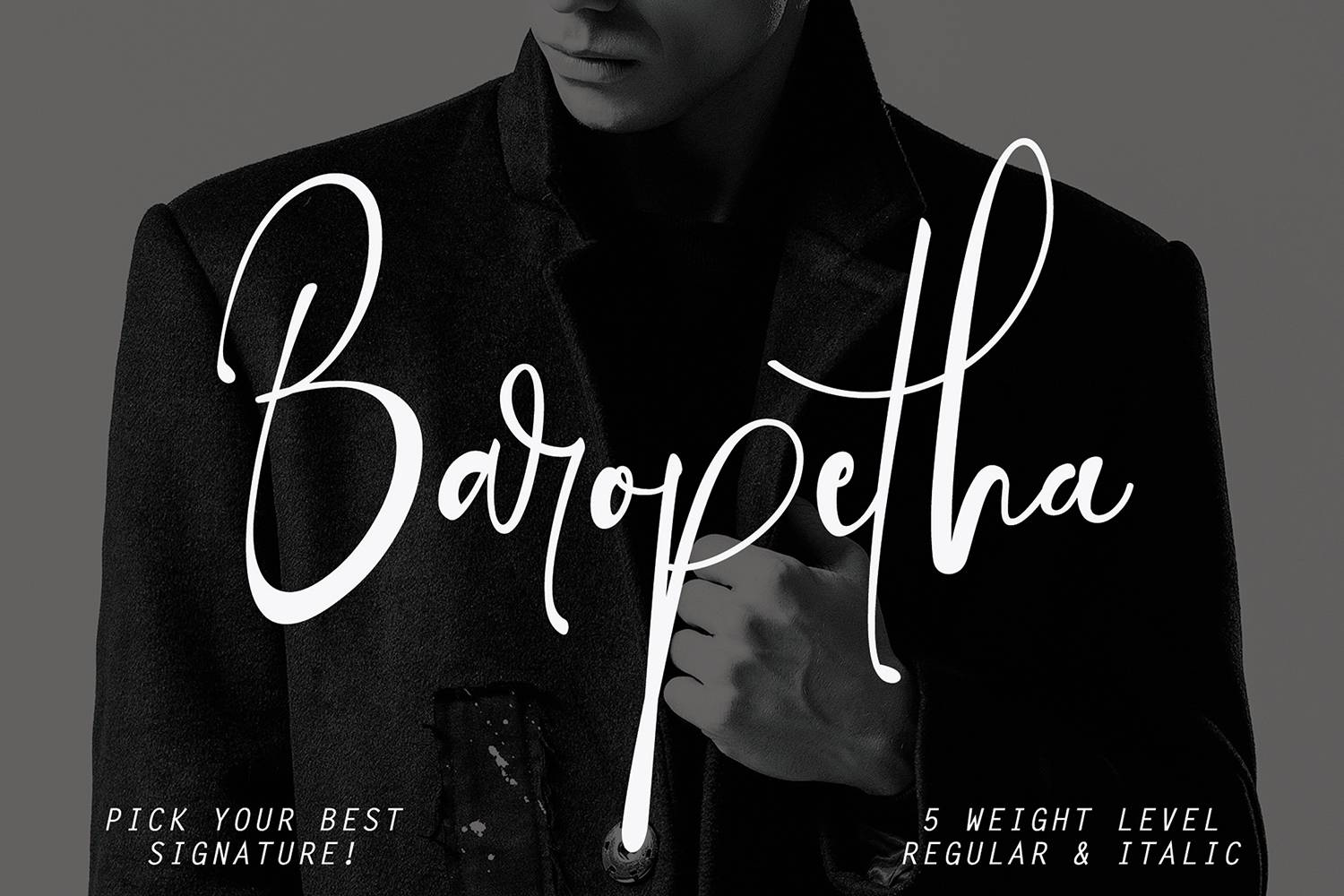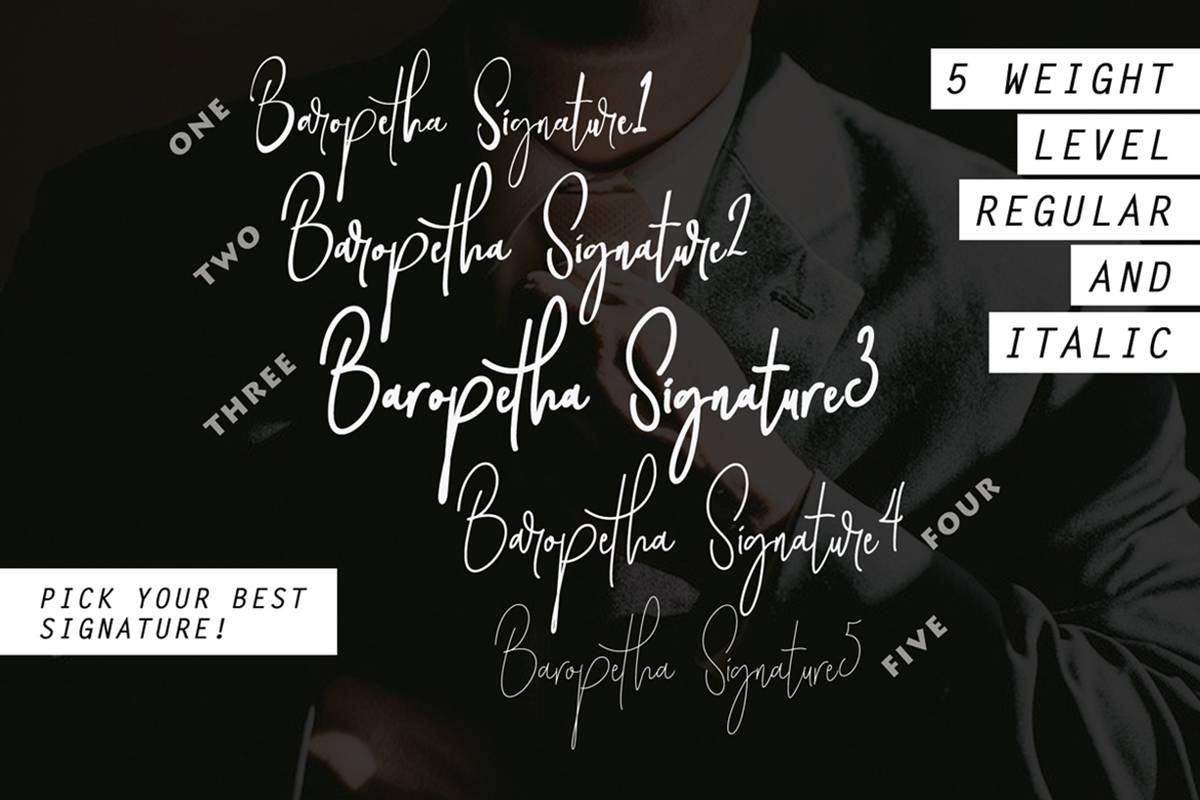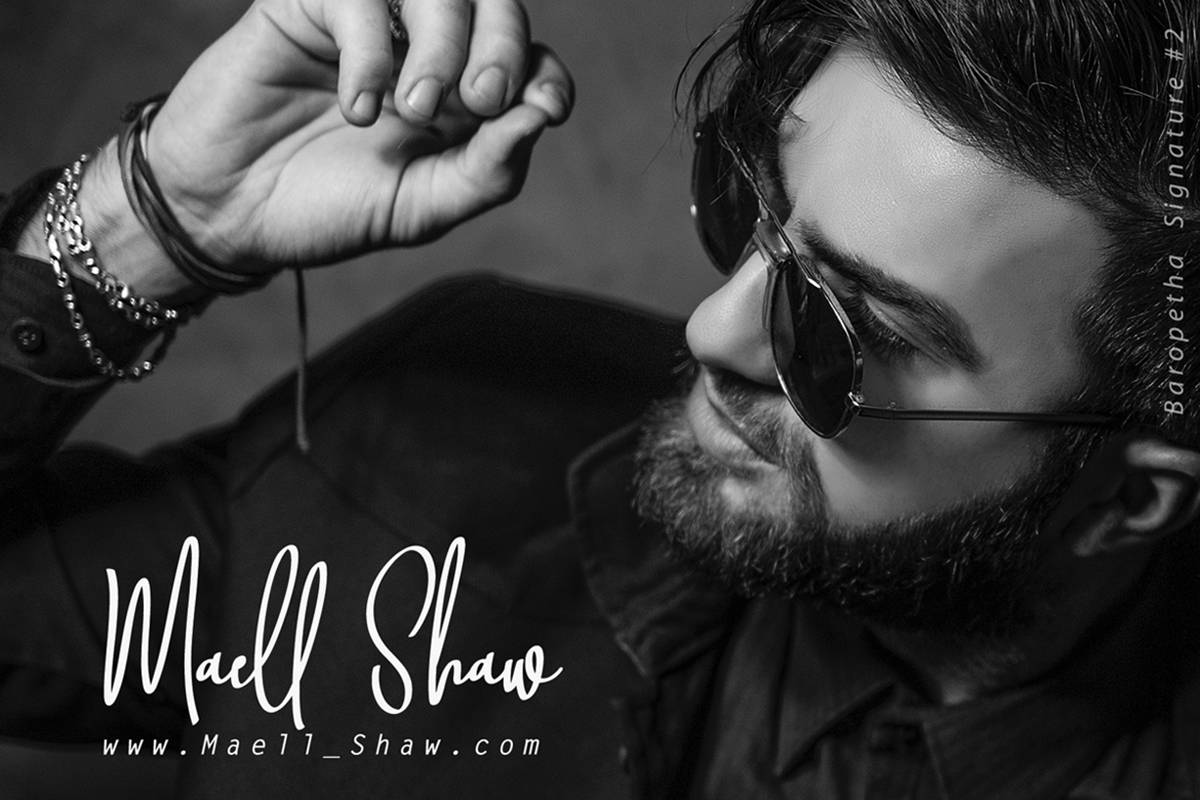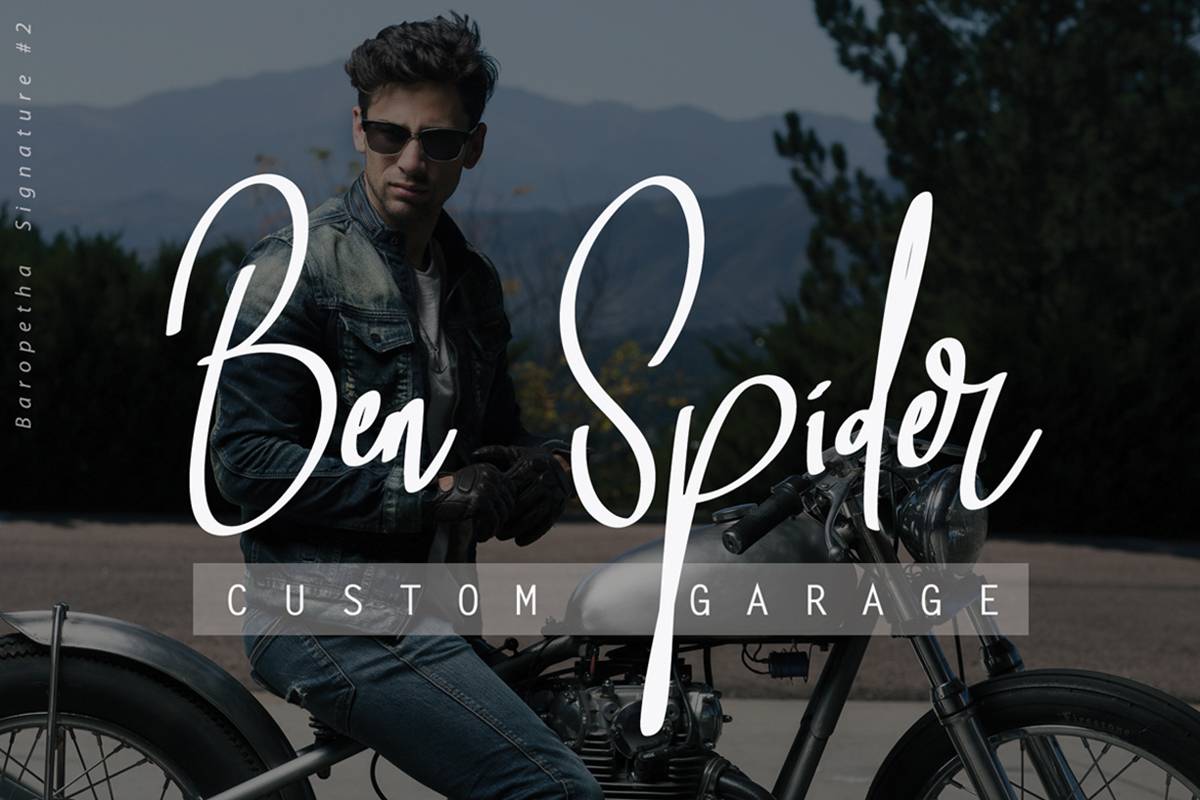
Baropetha is an elegant, handwritten script font featuring slender, flowing letterforms with pronounced tall x-heights and delicate stroke contrasts. Its unique mix of sharp and soft curves gives it a sophisticated yet personal feel, making it ideal for luxury branding, wedding invitations, and stylish logos where a signature-style touch is desired. This font works best in display settings where its intricate details can be appreciated.
Baropetha Font
About Baropetha Font
| Font family | Baropetha Font |
| Designer | Aldedesign 2019 |